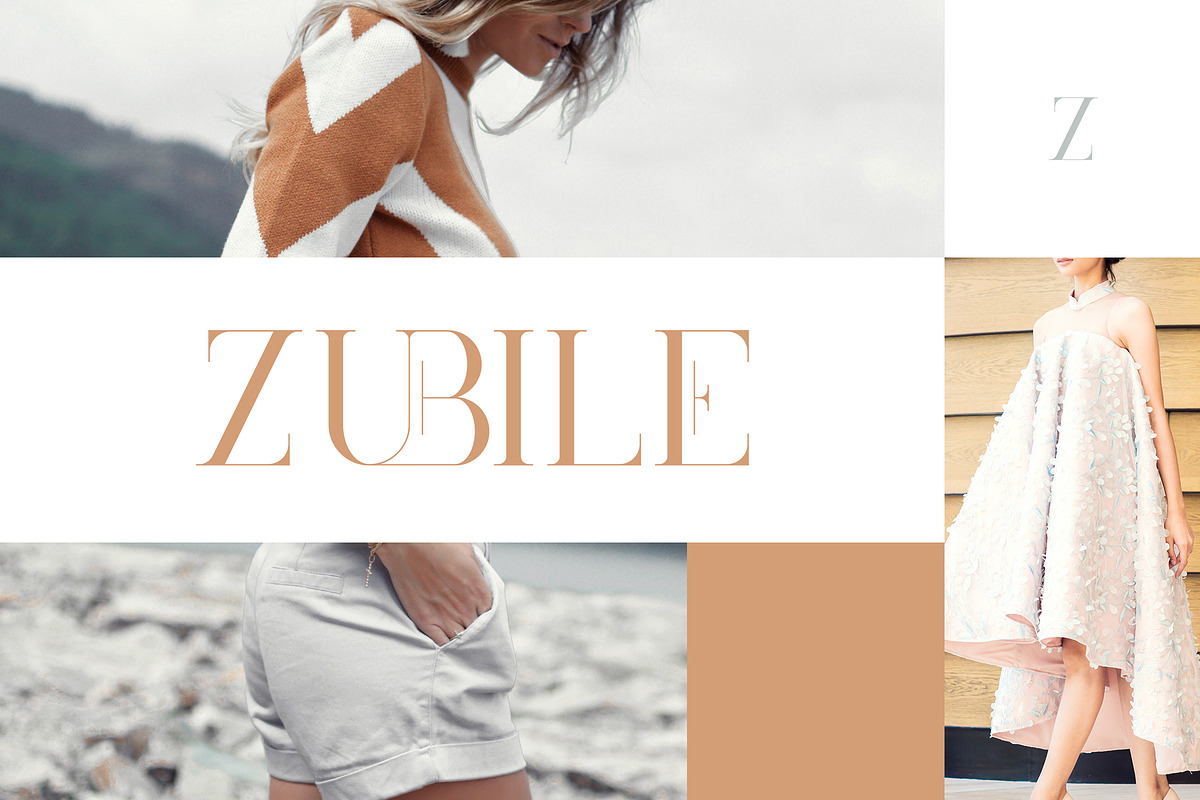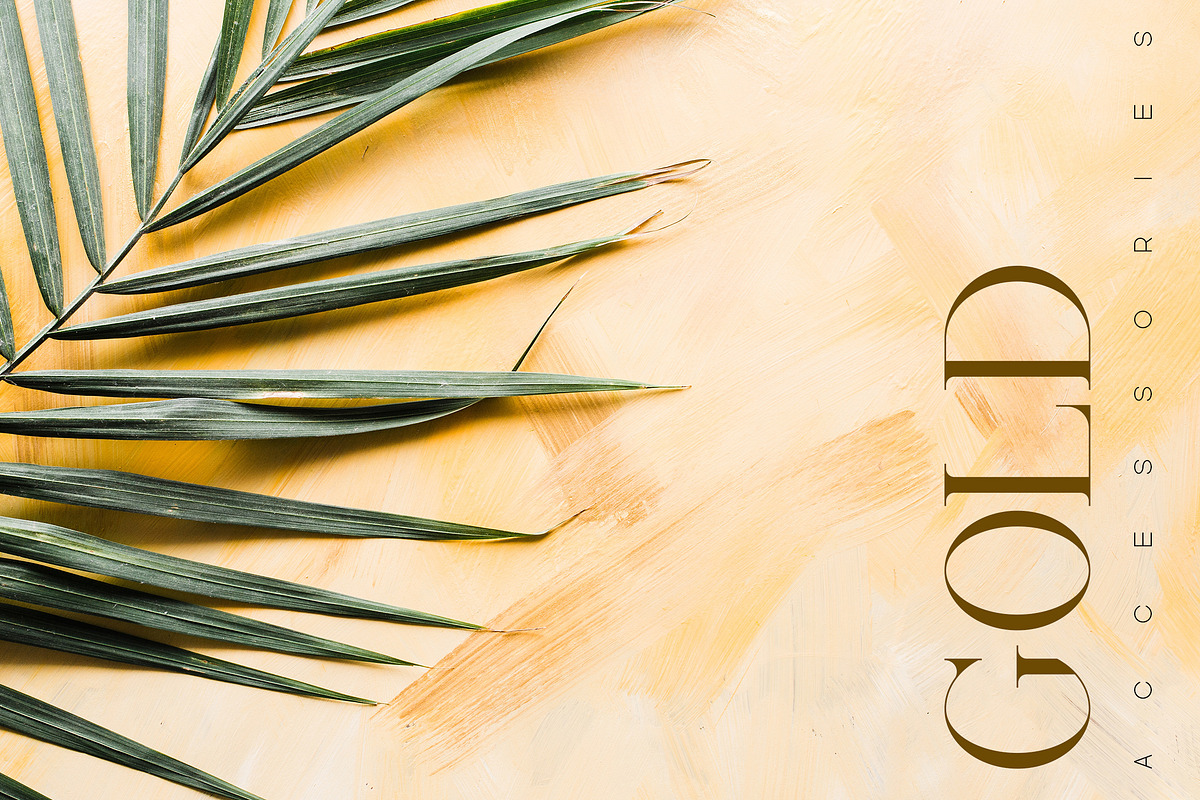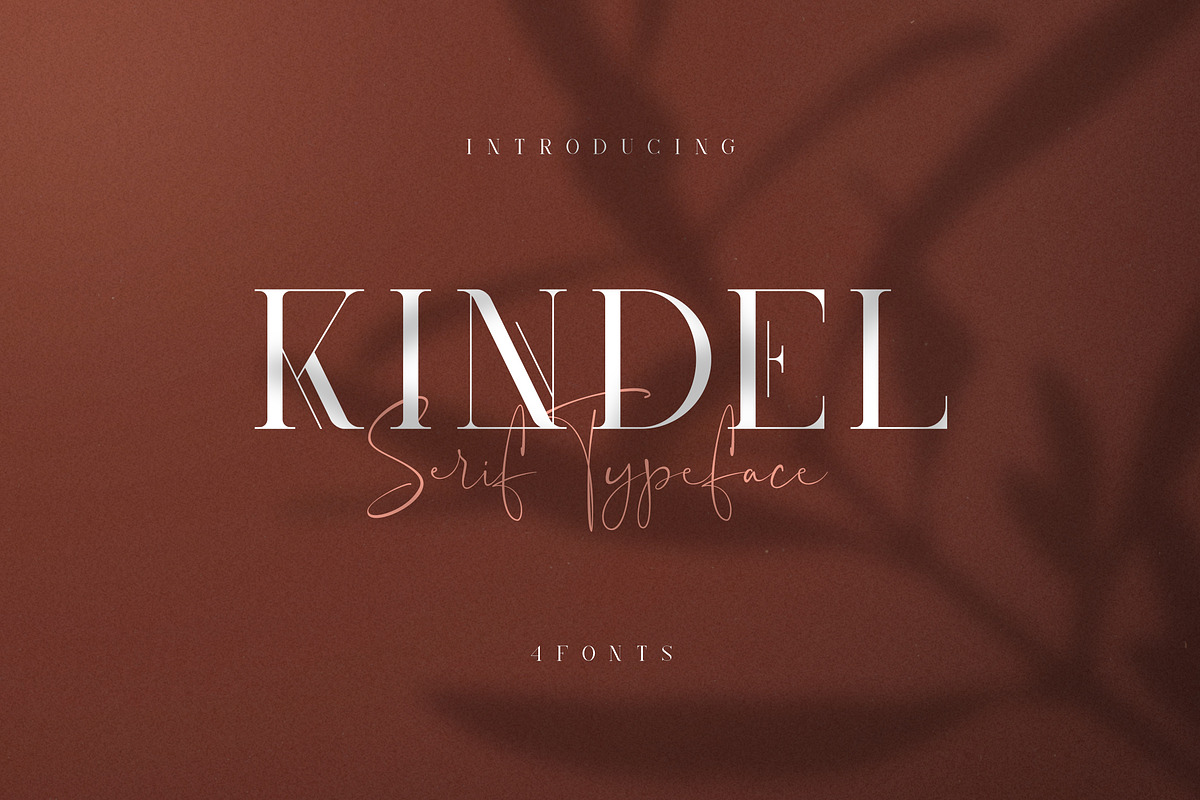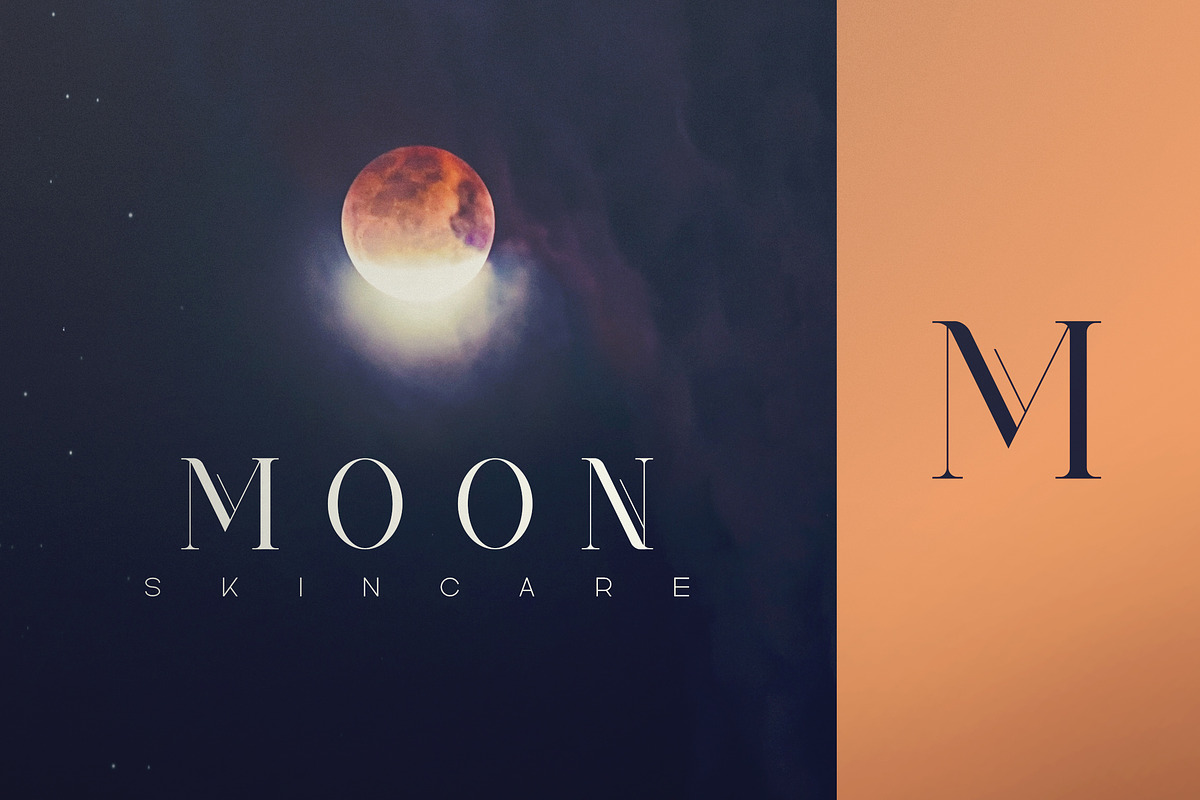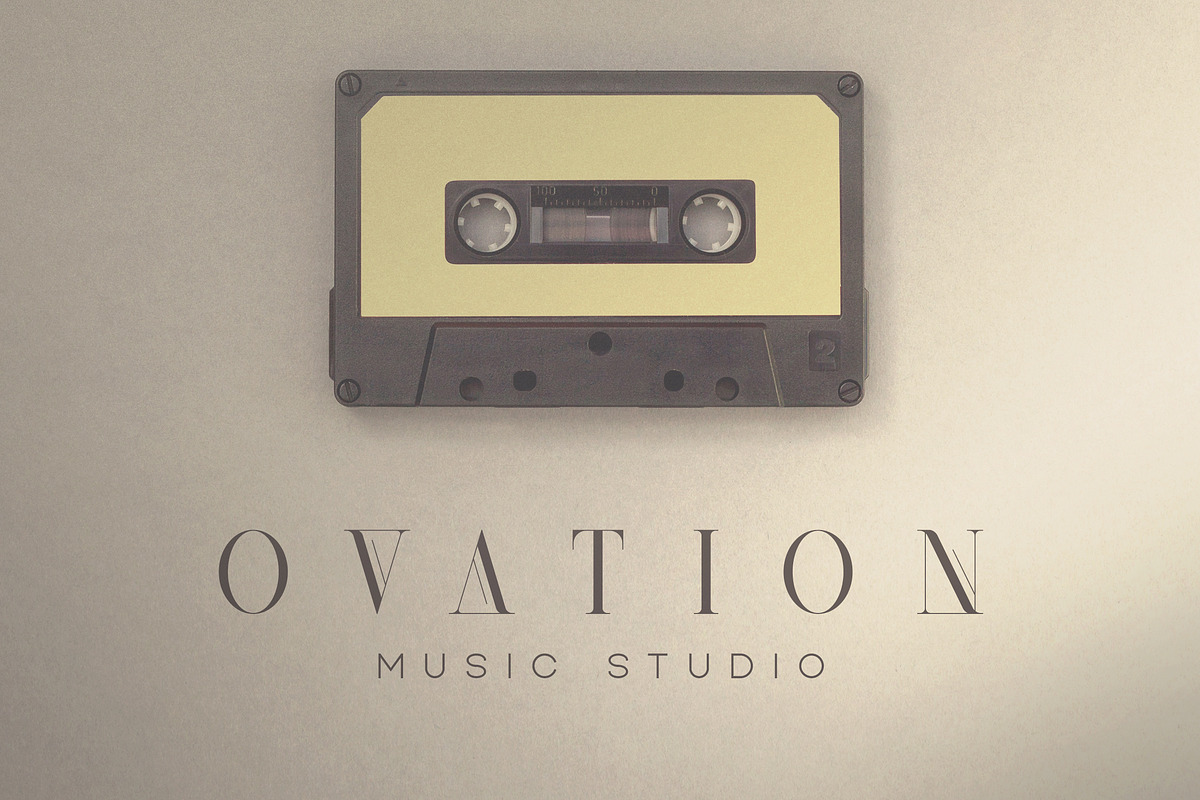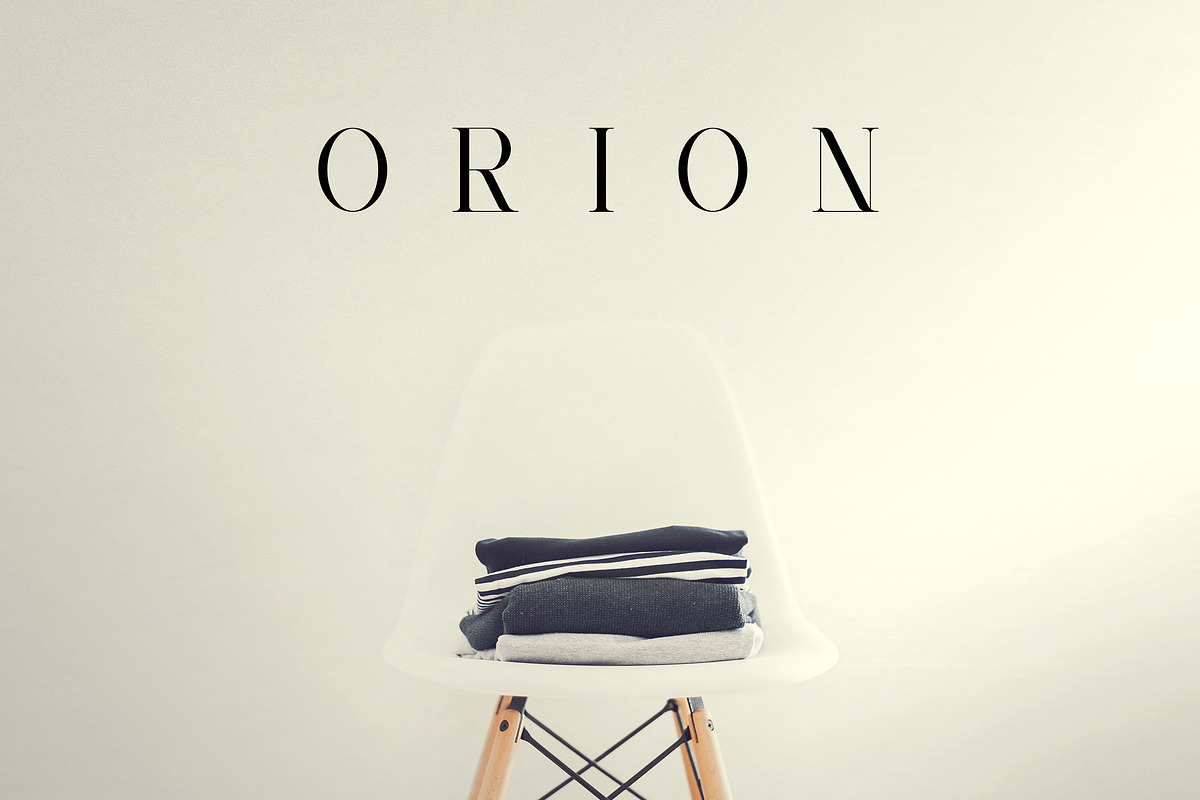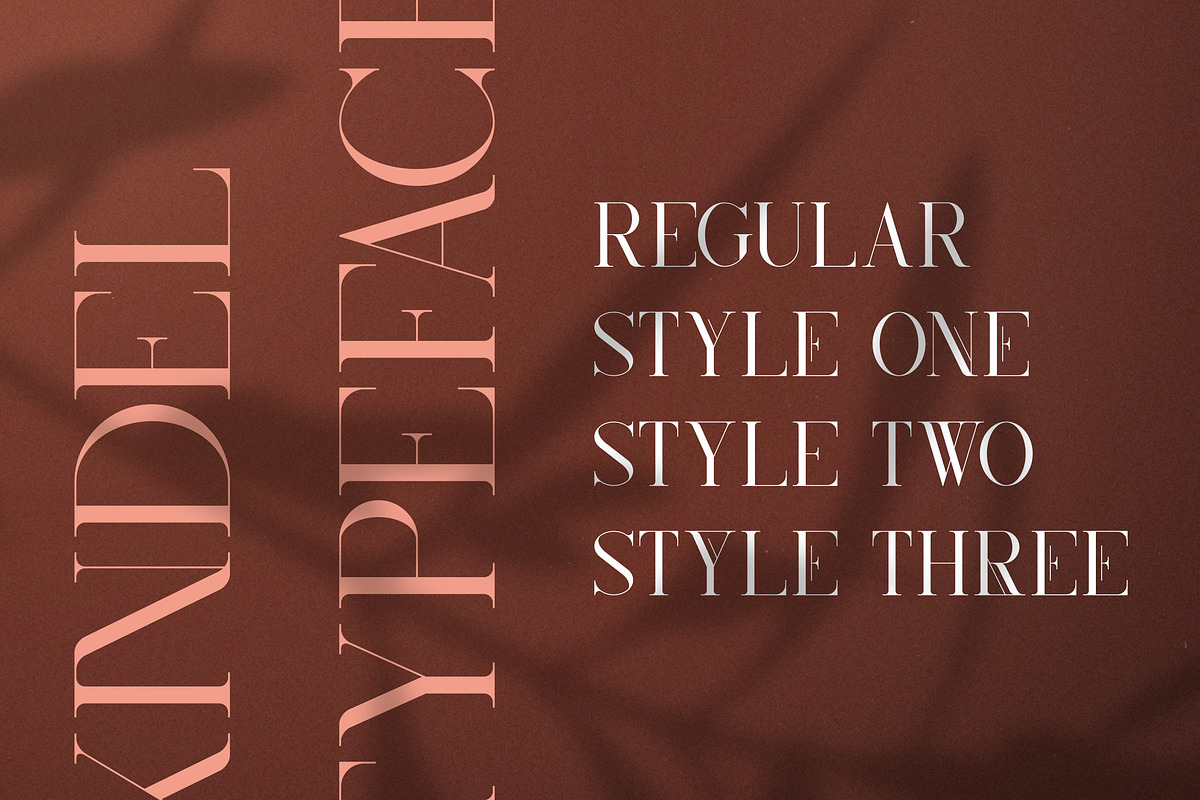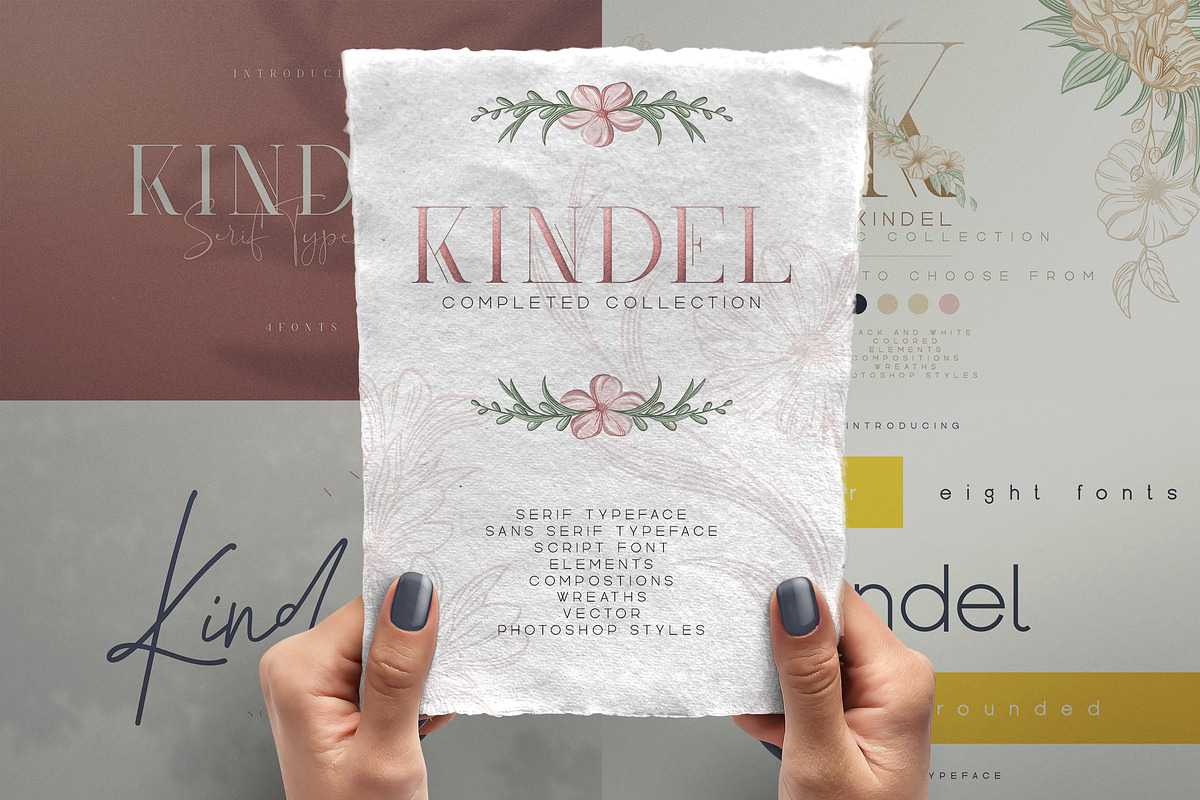
Kindel - Completed Collection
Introducing Kindel - completed edition
Kindel - serif typeface
Kindel - Graphic Collection
Light ( straight and rounded )
Regular ( straight and rounded )
Bold ( straight and rounded )
Black ( straight and rounded )
Kindel - Completed Collection by VP Fonts fits naturally into Branding, posters, packaging, typography.